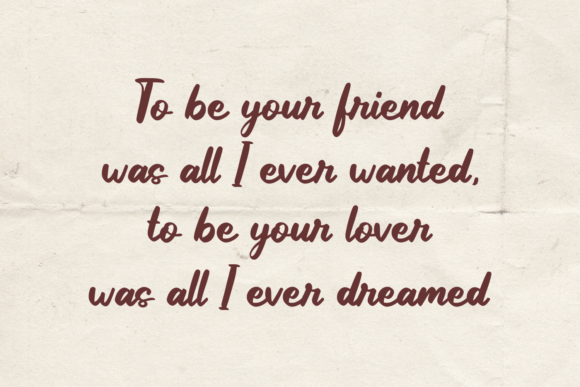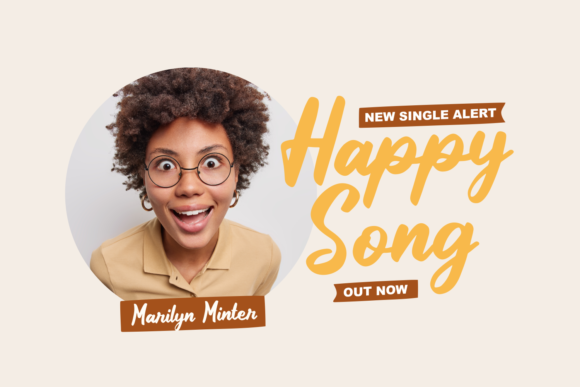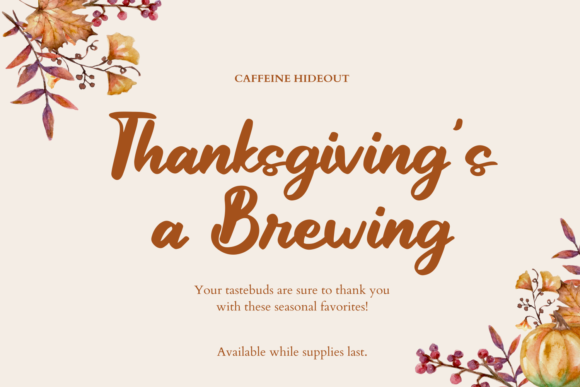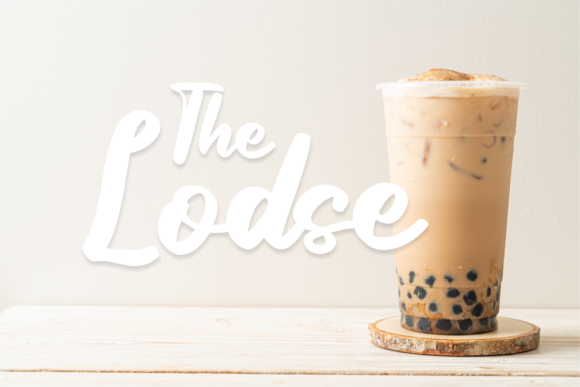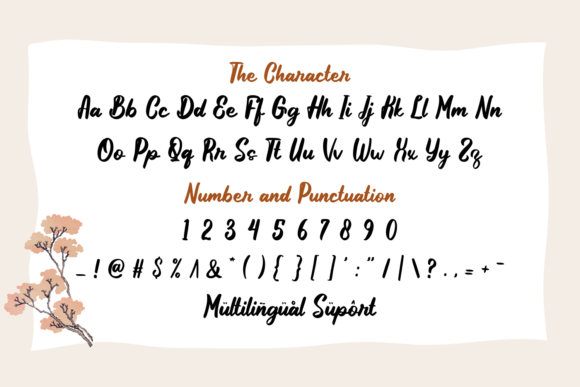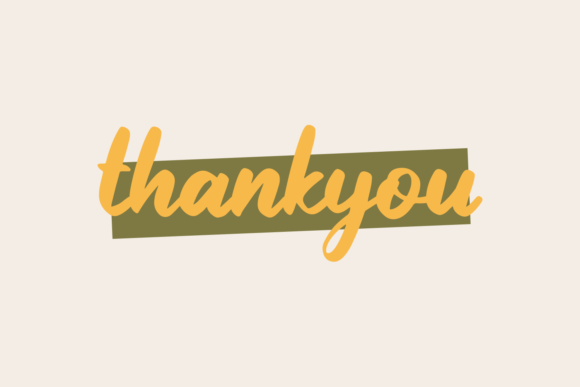
Introducing Degaule Font: The Charming Script Font That Brings Playfulness to Your Designs
Are you tired of using the same old fonts in your designs? Do you want to add a touch of personality and whimsy to your creative projects? Look no further than Degaule Font, a lovely script font that is sure to bring a smile to your face. With its charming, playful characters that seem to dance along the baseline, Degaule Font is the perfect addition to any designer’s toolkit.
What is Degaule Font?
Degaule Font is a script font that is designed to evoke a sense of playfulness and joy. Its characters are carefully crafted to have a sense of movement and energy, as if they are dancing along the baseline of the text. This font is perfect for designers who want to add a touch of whimsy to their designs, whether it’s for a branding project, a wedding invitation, or a craft project.
Features of Degaule Font
So, what makes Degaule Font so special? Here are just a few of its key features:
- Charming, playful characters: Each character in Degaule Font is designed to be charming and playful, with a sense of movement and energy.
- Dancing baseline: The characters in Degaule Font seem to dance along the baseline of the text, giving it a sense of whimsy and playfulness.
- Perfect for creative projects: Degaule Font is perfect for designers who want to add a touch of personality to their creative projects.
- Easy to read: Despite its playful nature, Degaule Font is still easy to read, making it perfect for use in a variety of design projects.
Uses for Degaule Font
So, what can you use Degaule Font for? The possibilities are endless! Here are a few ideas to get you started:
- Branding projects: Use Degaule Font to add a touch of personality to your brand’s logo or marketing materials.
- Wedding invitations: Degaule Font is perfect for wedding invitations, adding a touch of whimsy and romance to your special day.
- Craft projects: Whether you’re making cards, scrapbooking, or working on another craft project, Degaule Font is a great choice.
- Social media graphics: Use Degaule Font to add a touch of personality to your social media graphics, such as Instagram posts or Facebook graphics.
Tips for Using Degaule Font
Here are a few tips for using Degaule Font in your designs:
- Use it sparingly: While Degaule Font is playful and fun, it can be overwhelming if used too much. Use it sparingly to add a touch of personality to your designs.
- Pair it with a simple font: Pair Degaule Font with a simple font to create contrast and make your design stand out.
- Experiment with colors: Degaule Font looks great in a variety of colors, so don’t be afraid to experiment and find the perfect color for your design.
In conclusion, Degaule Font is a charming script font that is sure to bring a touch of playfulness and whimsy to your designs. With its dancing characters and easy-to-read design, it’s perfect for a variety of creative projects. Whether you’re a designer, crafter, or just someone who loves to create, Degaule Font is a great addition to your toolkit. So why not give it a try and see how it can make your designs stand out?
So, add Degaule Font to your most creative ideas and notice how it makes them stand out! Its unique and charming characters will surely make your designs more engaging and attractive to your audience. Get creative with Degaule Font today and take your designs to the next level!